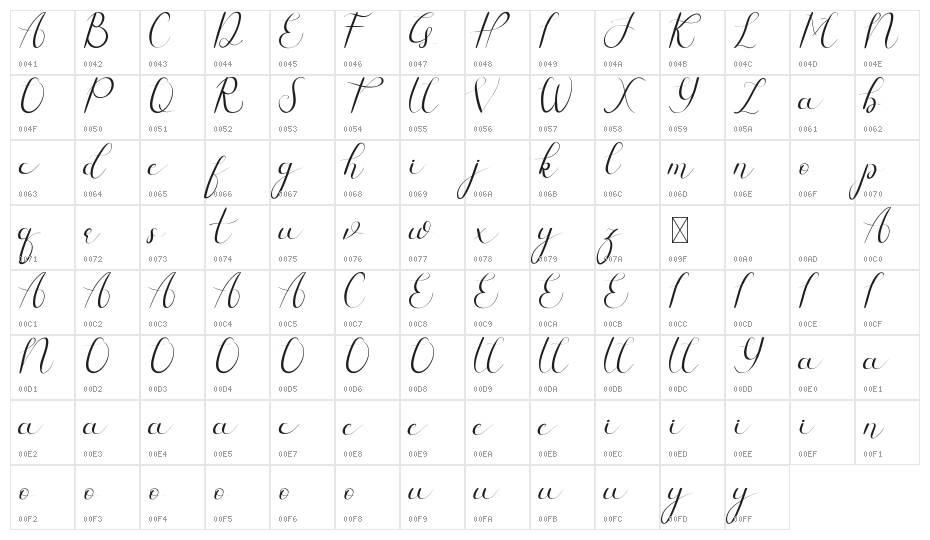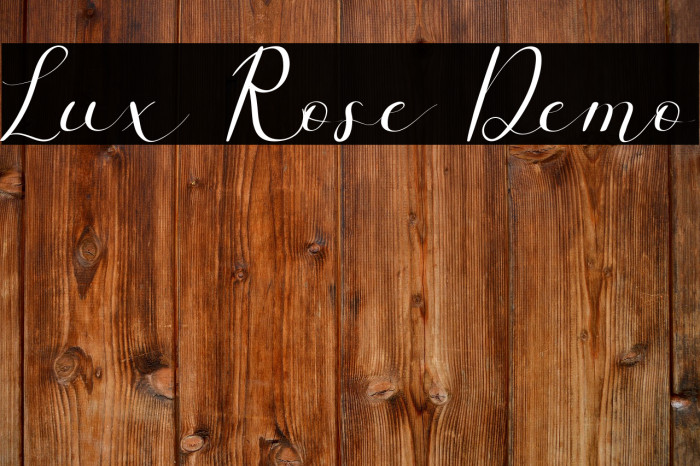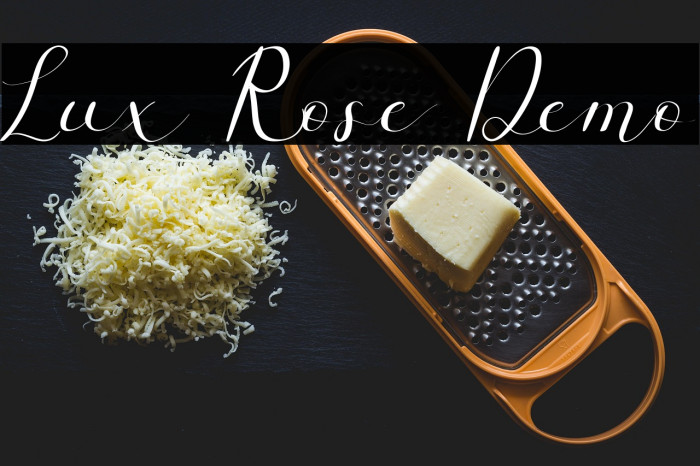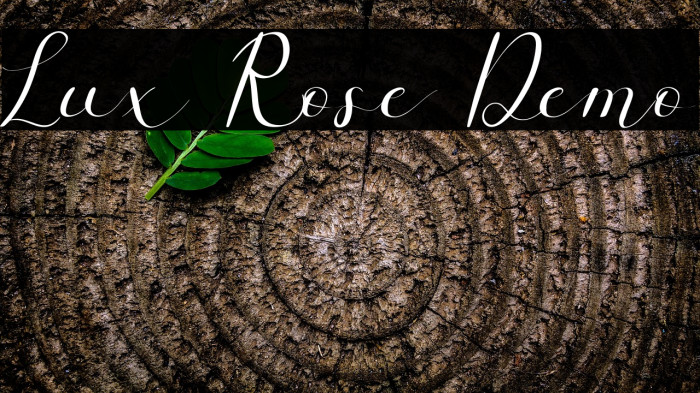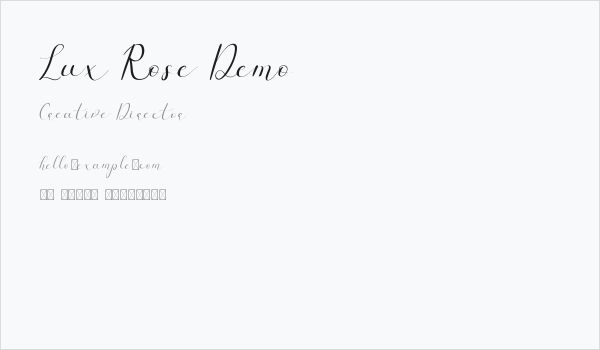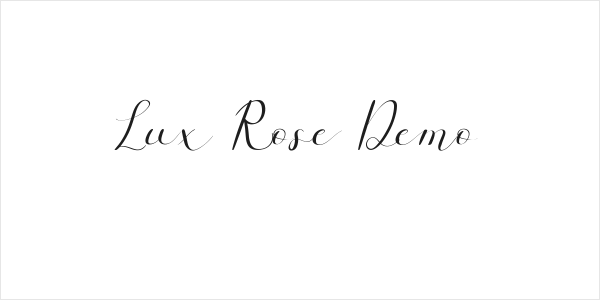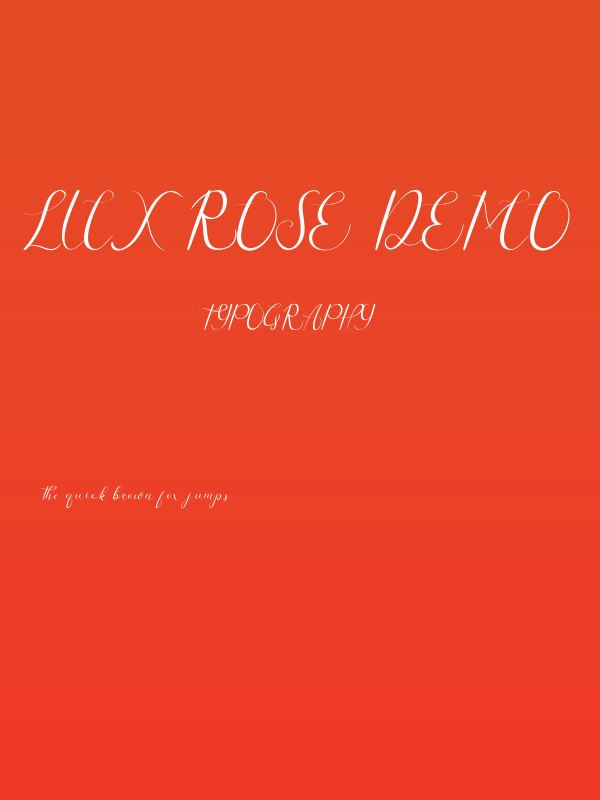
Lux Rose Demo Font
Lux Rose Demo Description
This elegant script font features flowing, interconnected letters with a graceful and sophisticated appearance. The uppercase letters are tall and slender, with delicate loops and flourishes that add a touch of refinement. The lowercase letters maintain a consistent style, with smooth curves and a fluid motion that enhances readability. The font's overall design is reminiscent of classic calligraphy, making it suitable for formal and decorative applications. The characters are well-spaced, allowing for a harmonious and balanced look across different text compositions.